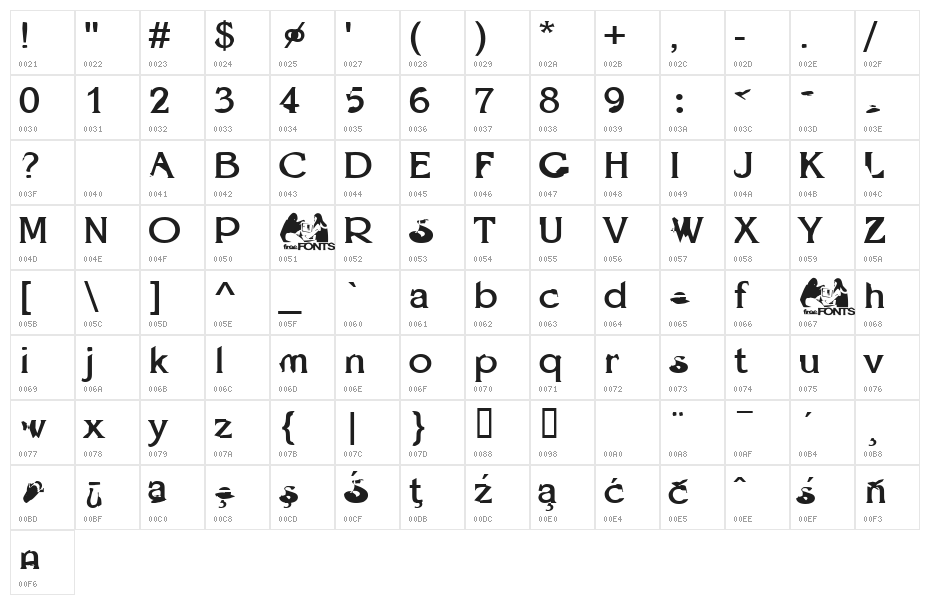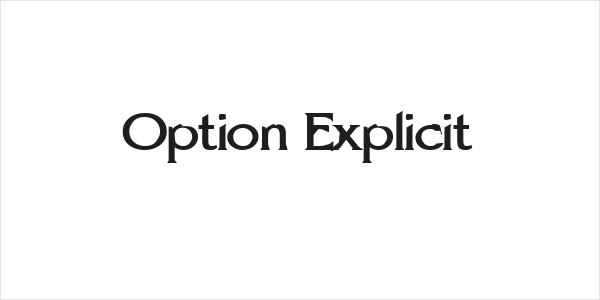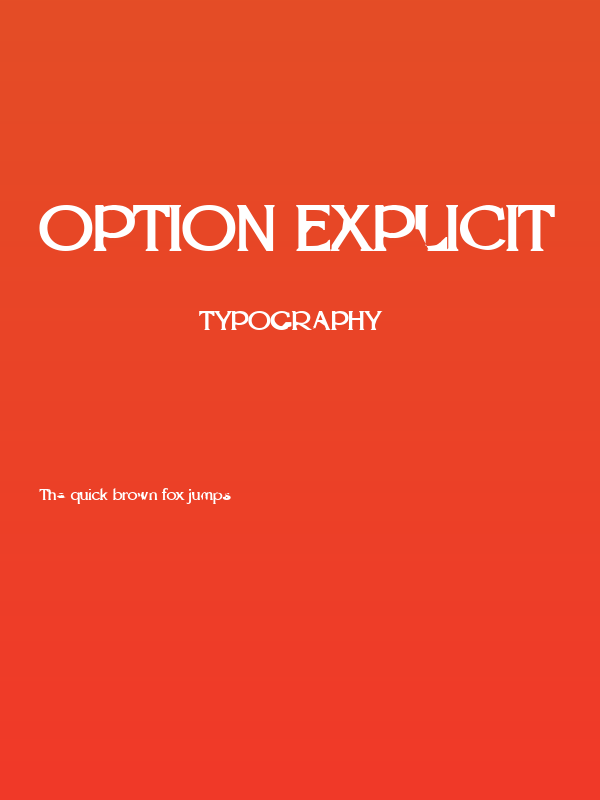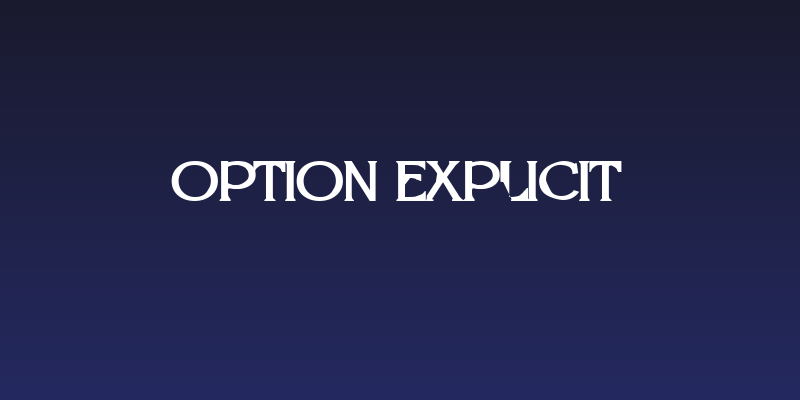
Option Explicit Font
Option Explicit Description
This font features a bold and dramatic style with high contrast between thick and thin strokes, giving it a striking appearance. The characters have a unique, artistic flair with sharp serifs and angular lines, creating a sense of movement and energy. The uppercase letters are particularly bold, while the lowercase letters maintain a consistent style. The numbers and special characters follow the same design principles, ensuring a cohesive look across all glyphs. This font's distinctive style makes it suitable for creative and eye-catching designs.
| Proposed Projects | This font is perfect for projects that require a bold statement, such as posters, album covers, branding, and headlines. |